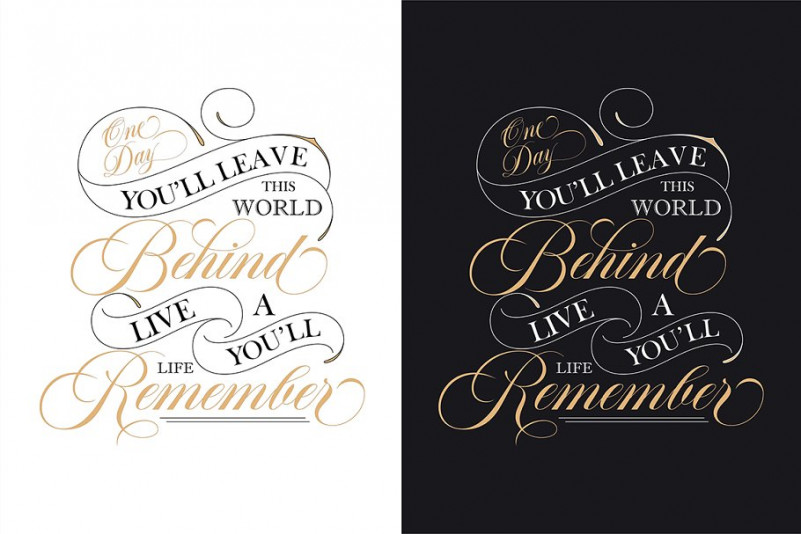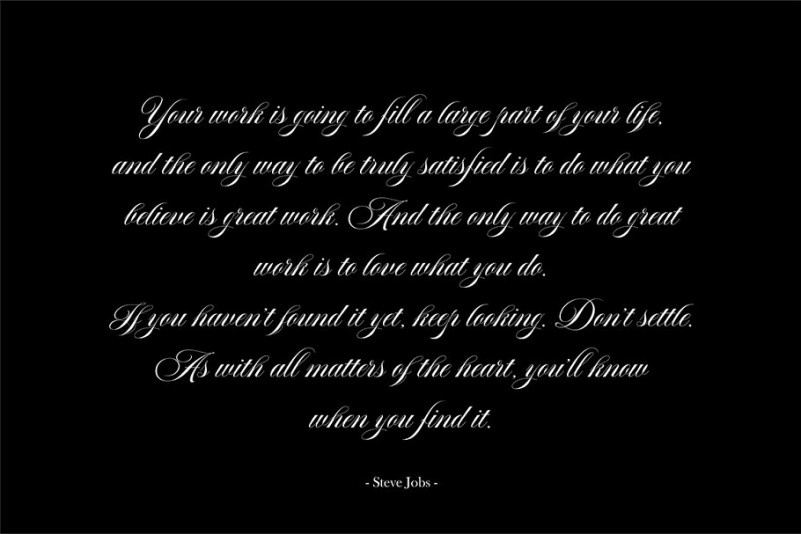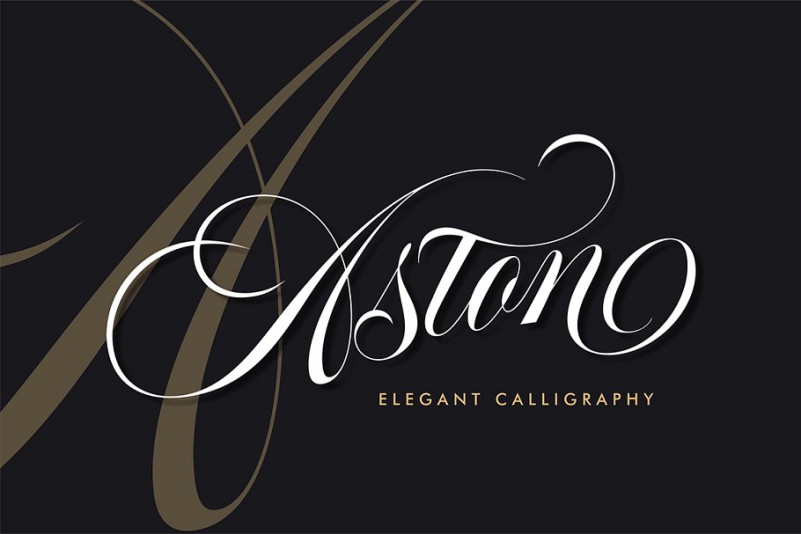
Aston Calligraphy Font
Aston Font – This is a new premium calligraphy font that comes with beautiful alternative characters. a mixture of copper calligraphy with handleting style. Designed to bring style elegance. Aston designed and shared by Teuku Risky Firmina. Aston Script is a calligraphy script font that comes with very beautiful changing characters, a kind of classic decorative copper script with a modern touch, designed with high detail to bring stylish elegance. Aston Script is attractive as a typeface that is smooth, clean, feminine, sensual, glamorous, simple and very easy to read, because there are many fancy letter connections. I also offer a number of viable style alternatives for many letters. The classic style is perfect to be applied in various formal forms such as invitations, labels, restaurant menus, logos, fashion, make up, stationery, novels, magazines, books, greeting / wedding cards, packaging, labels or any type of advertising purpose.